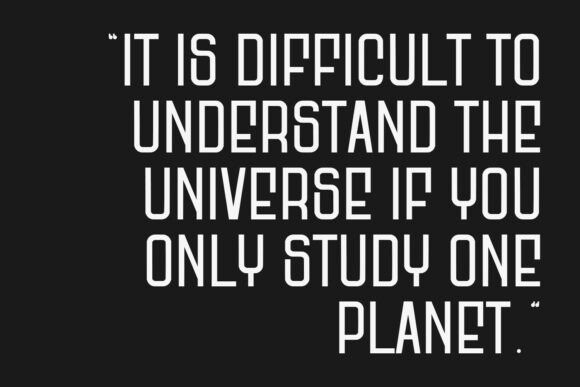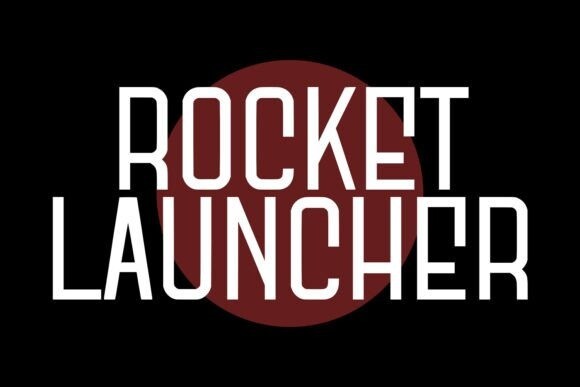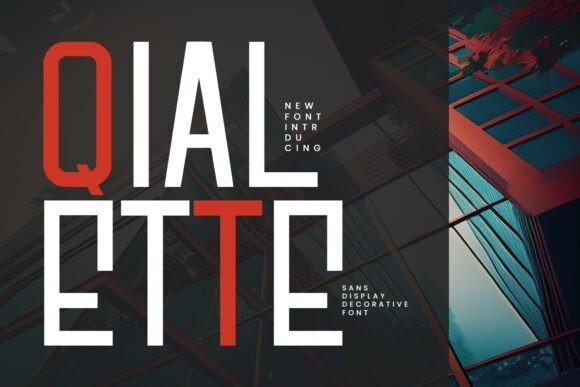
Qialette Font
Qialette Font is a modern and stylish sans-serif display font. Its clean and bold letters make it perfect for headlines, logos, and titles. The font has a sleek, professional look, ideal for creating eye-catching designs with a contemporary feel.